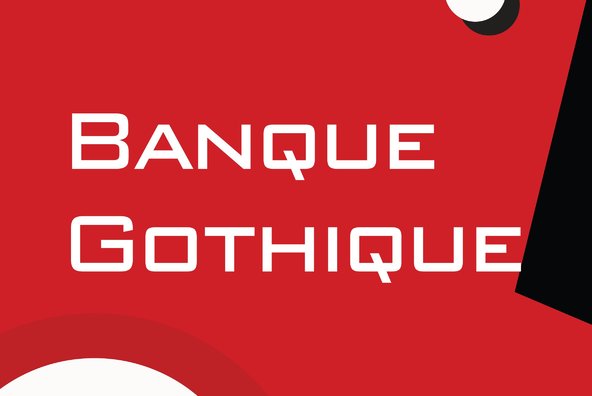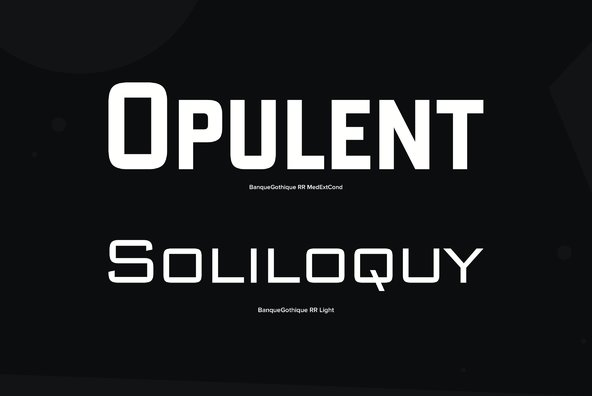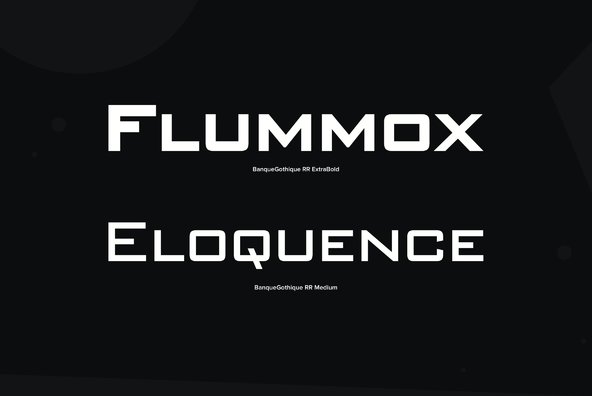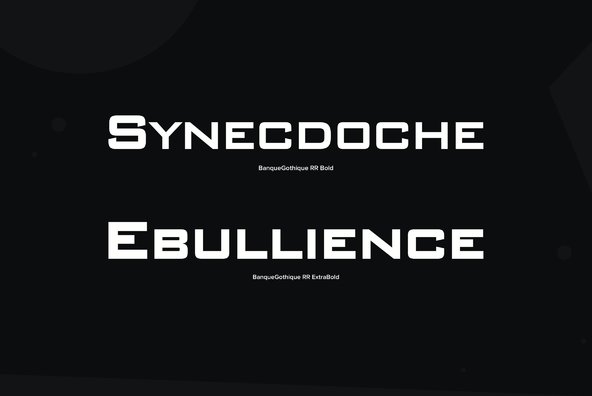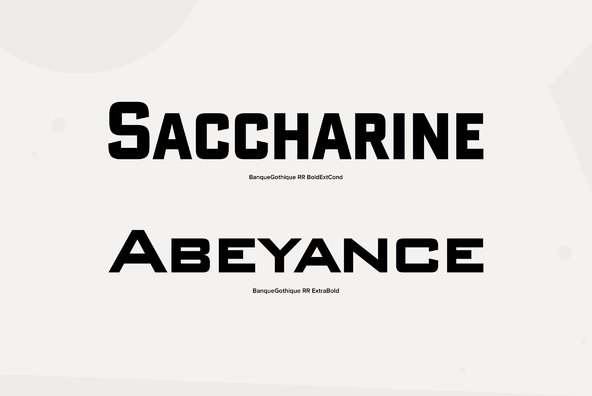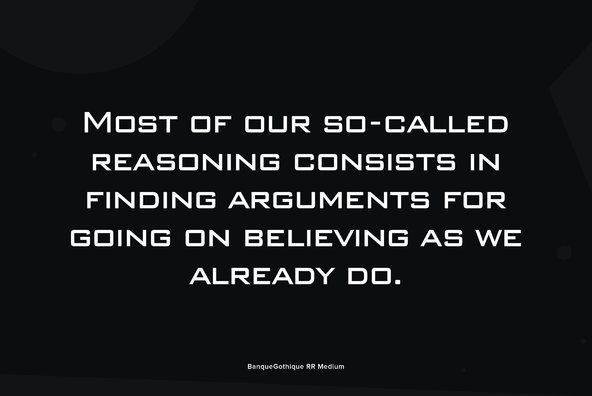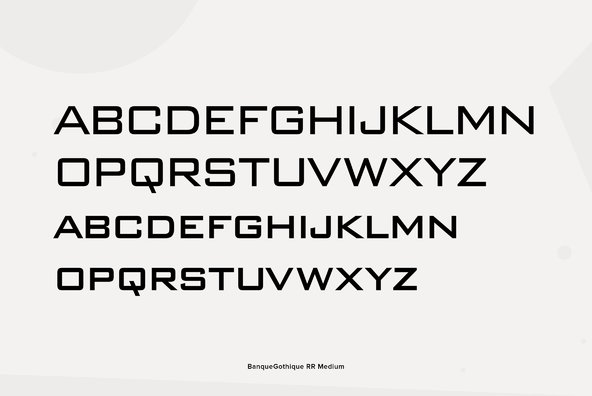
Banque Gothique
Designed by Steve Jackaman, Banque Gothique is based on the earliest references of the ATF/Morris F. Benton versions of the Bank Gothic typefaces. This version has been Fleshed-out into a full family.